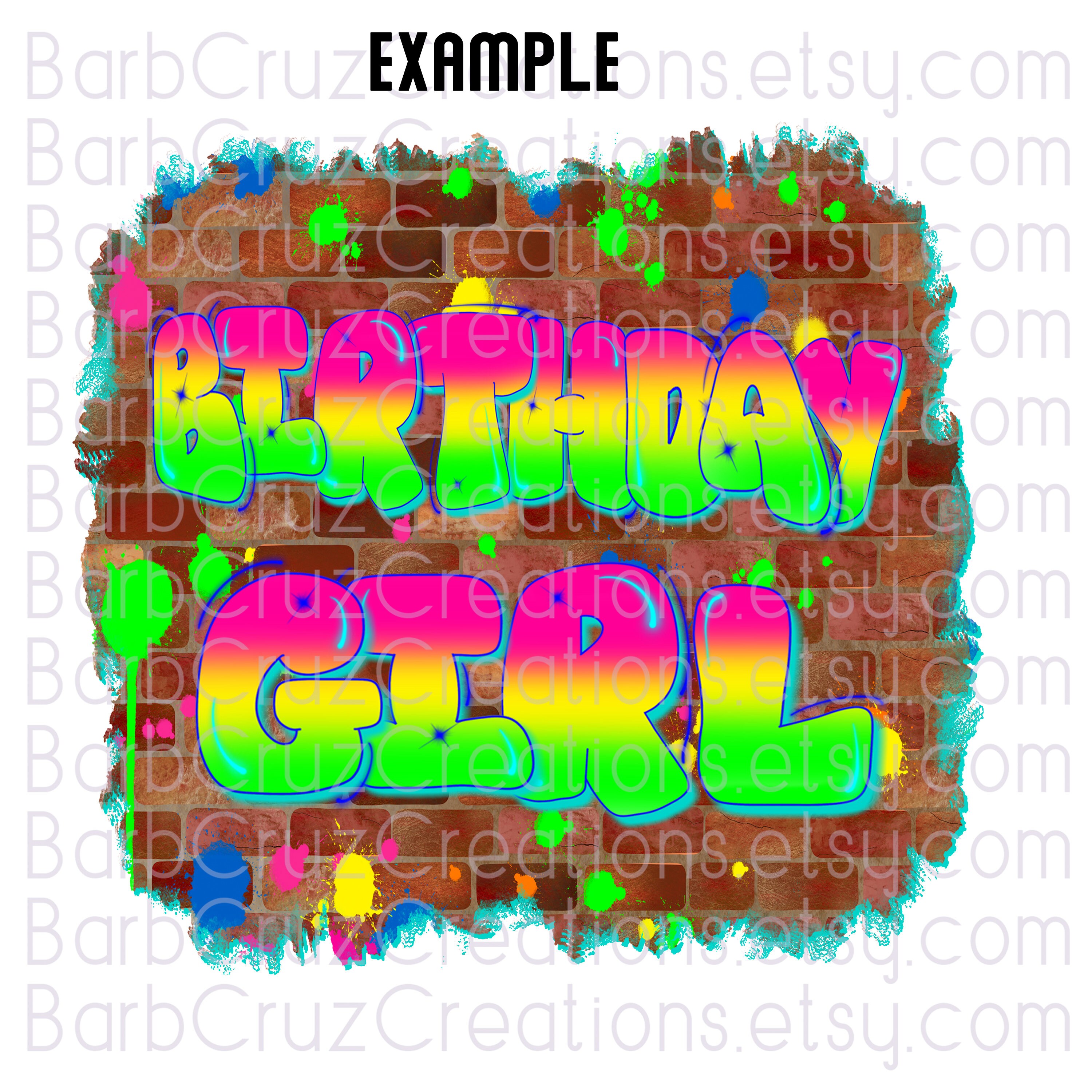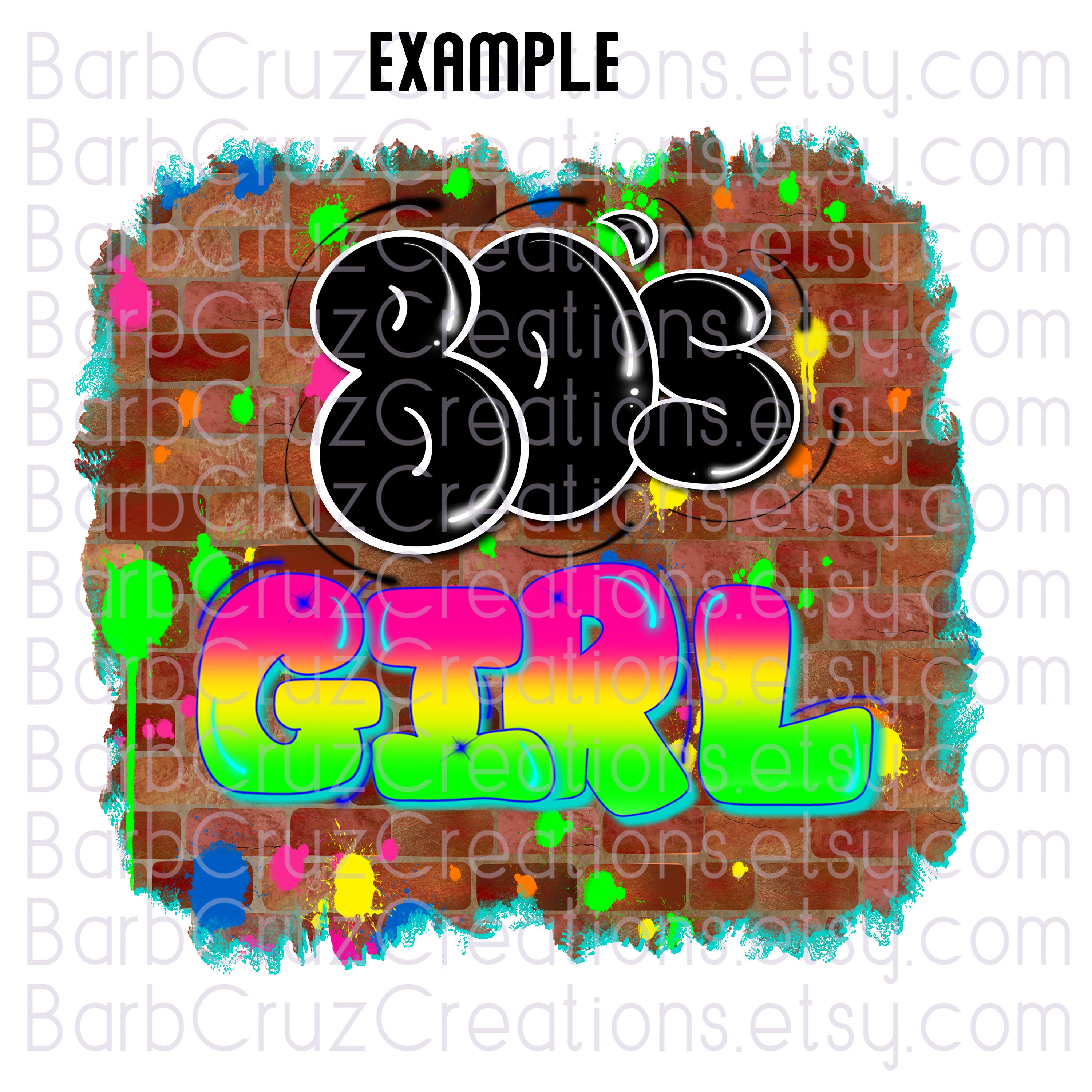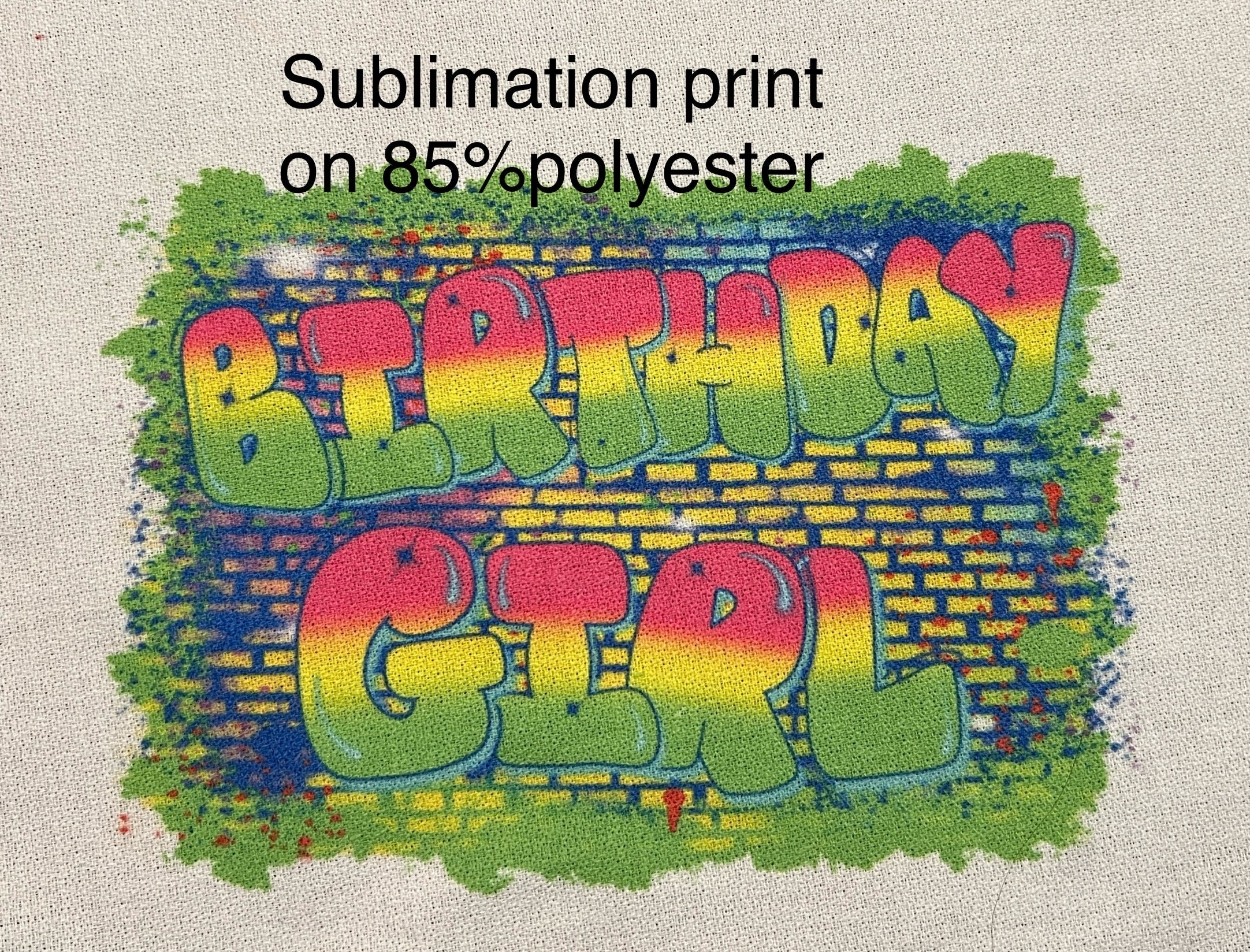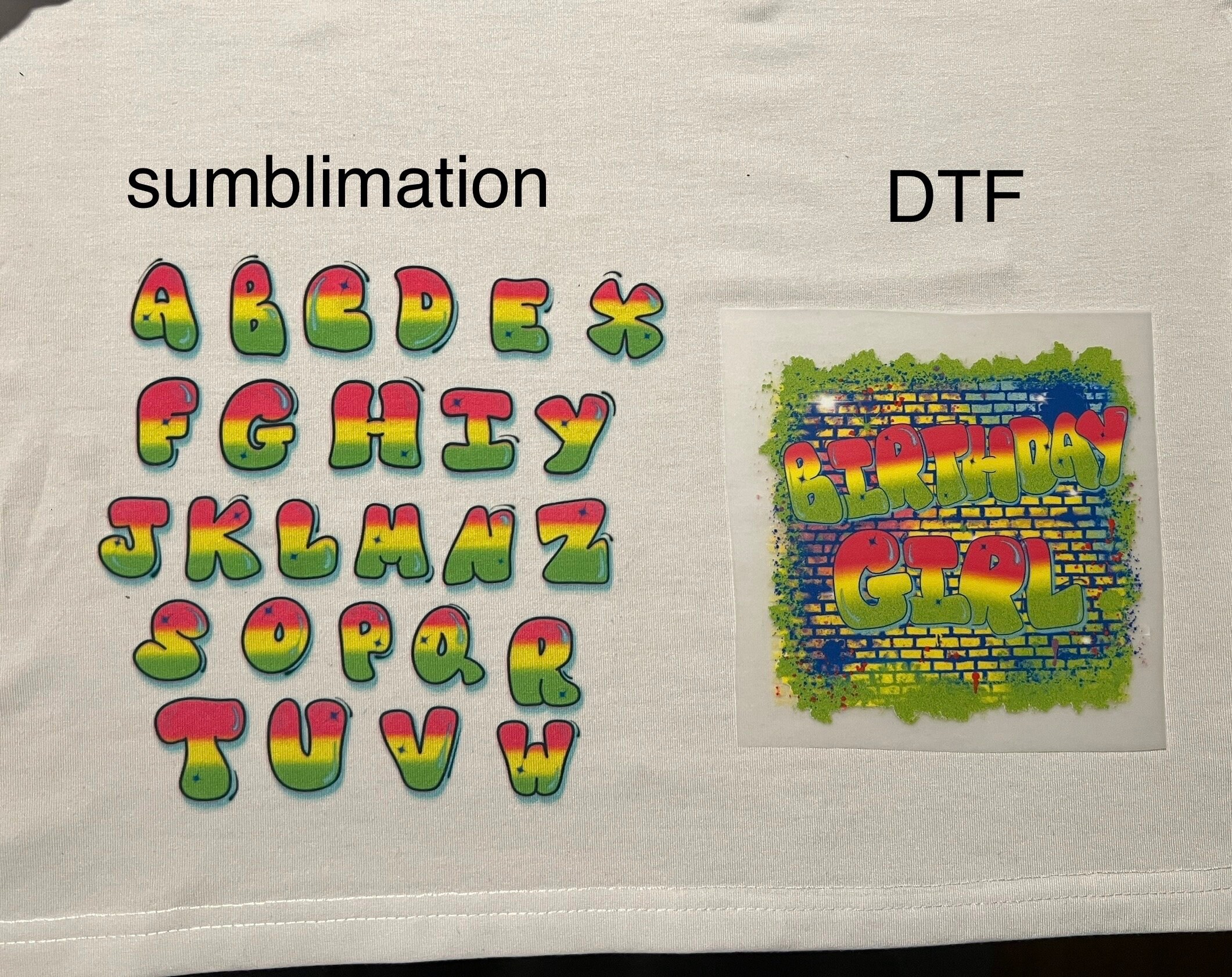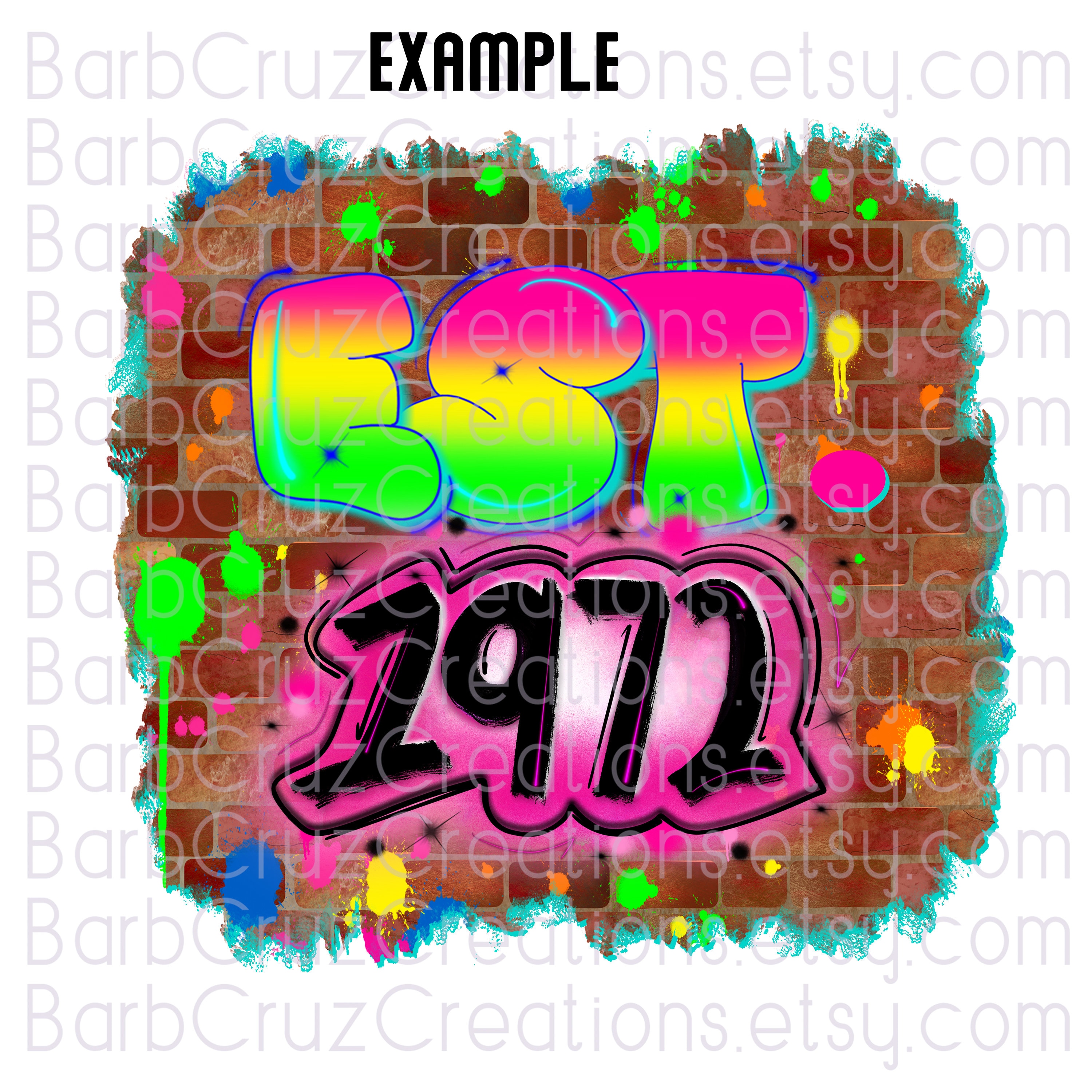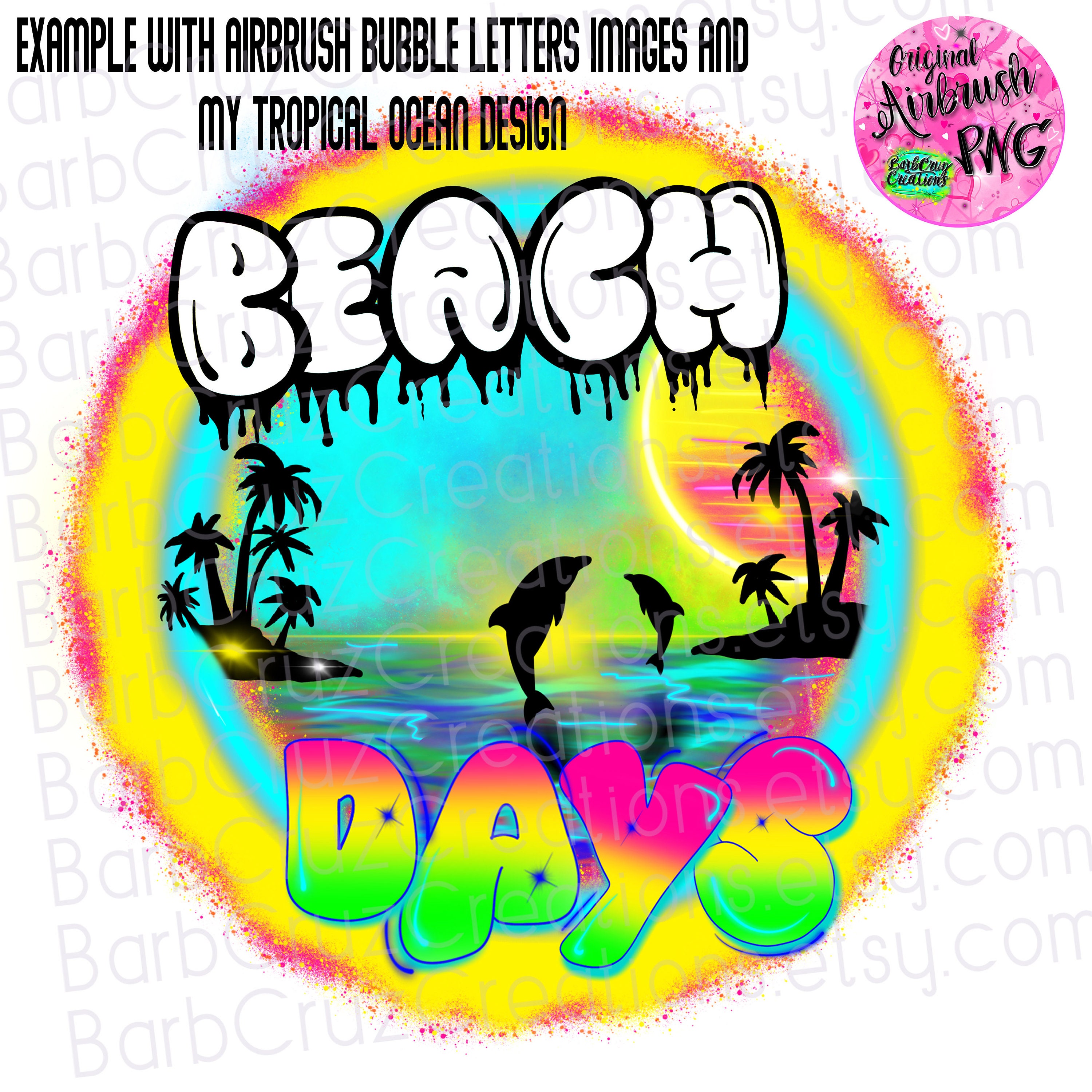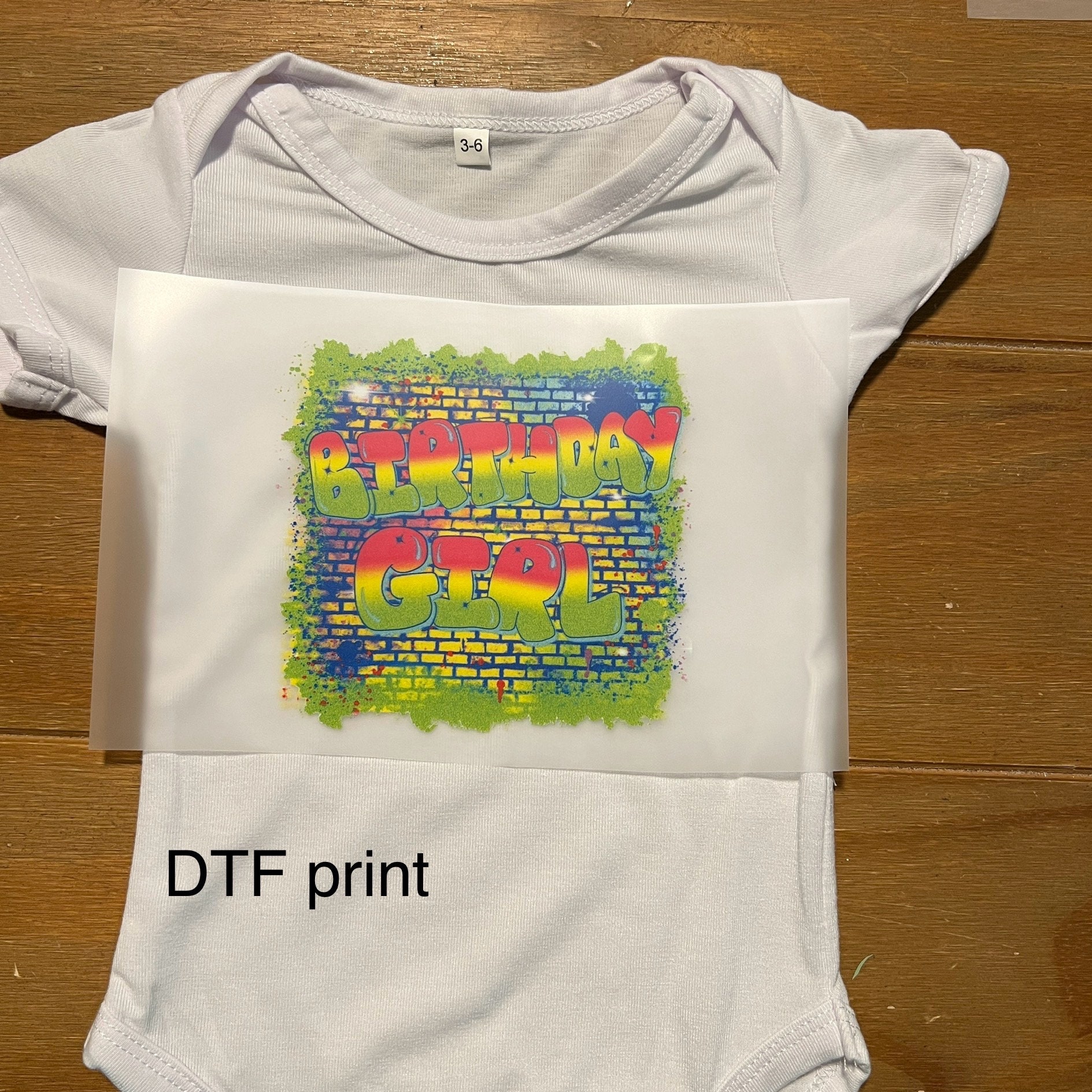
Airbrush png, Font, Graffiti Letters, Alphabet, Airbrush Font images, Sublimation Design, Bubble, Hip Hop lettering, Fun Trendy Letter art
Bold Font in Pink, Yellow, and Green png format in a zip file, with a bonus brick wall image
Add to a background use for airbrush monogram, a personal message, name, image to make a custom design in your design program.
Watercolor & Airbrush Images are transparent in some spots and can be layered to achieve darker or brighter images. Use your copy and paste feature for desired brightness.
* These are individual images. So you can layer them and place them for your desired look. (They are NOT fonts to incorporate into your computer keyboard to type out.) the images have a transparent background for layering. There are 26 images 1 for each letter in a zip file. Once you download the zip file you can extract all the images into you pictures folder for use.